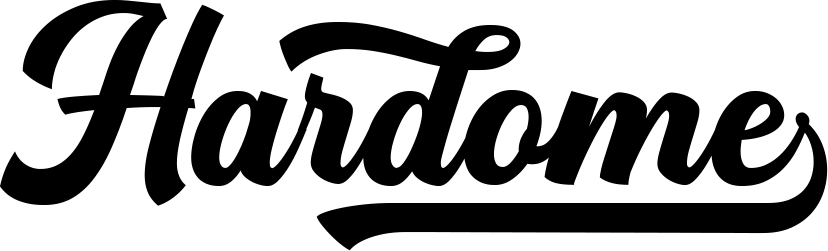
Hardome Font
There comes a time to time when you need to design an invitation card or a Valentine’s Day card, for this kind of situation you require a baseball script font. Hardome is a perfect example that can help you to create a retro and romantic vibe.
This font offers you an amazing collection of characters containing both the uppercase and lowercase of the alphabet, the numbers, and the punctuation marks.